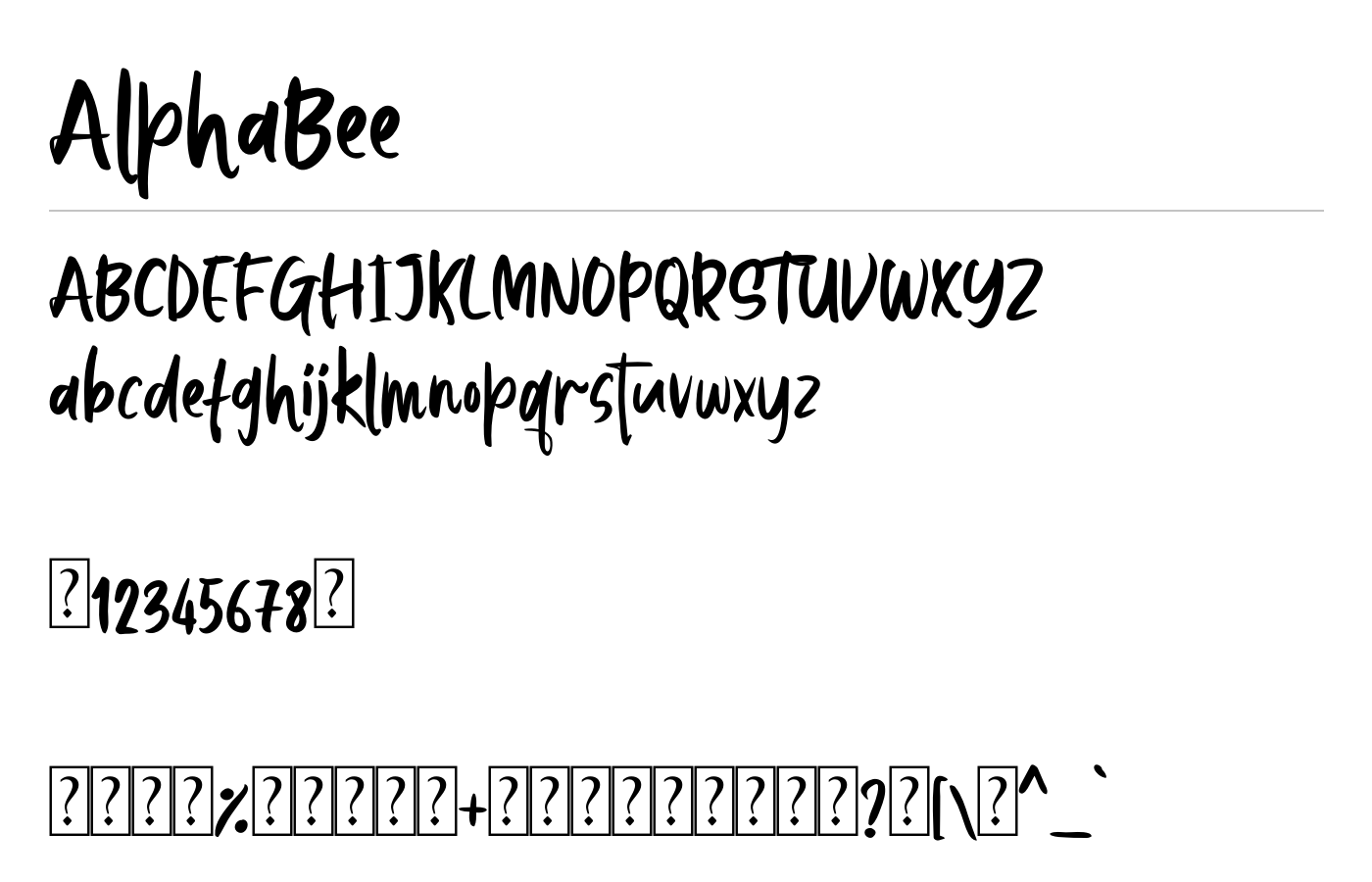
AlphaBee is a playful and casual handwritten sans serif font with a lively, brush-like texture and medium weight. Its tall x-height and friendly letterforms give it an approachable, personal feel, making it ideal for creative branding, invitations, and informal headlines where a warm, energetic style is desired. This font works well in projects needing a modern, hand-crafted touch that feels both charming and easygoing.
AlphaBee Font
About AlphaBee Font
| Font family | AlphaBee Font |
| Designer | Gunawan Syarifudin |